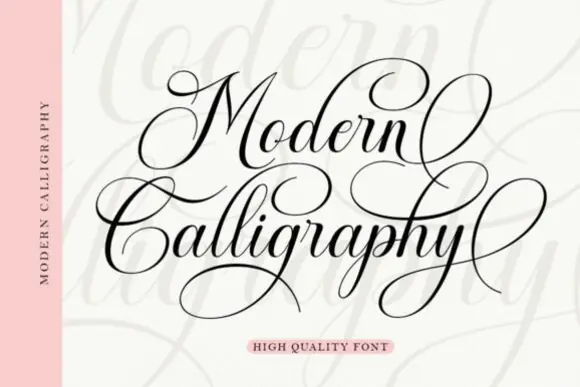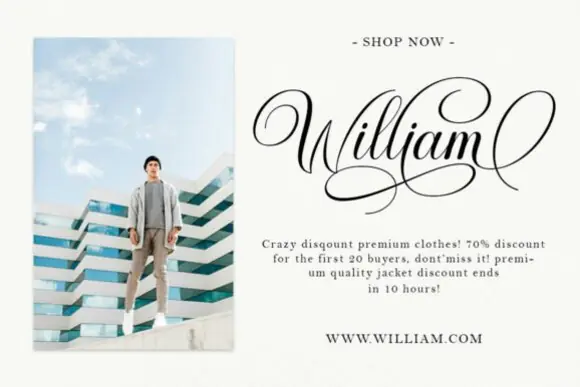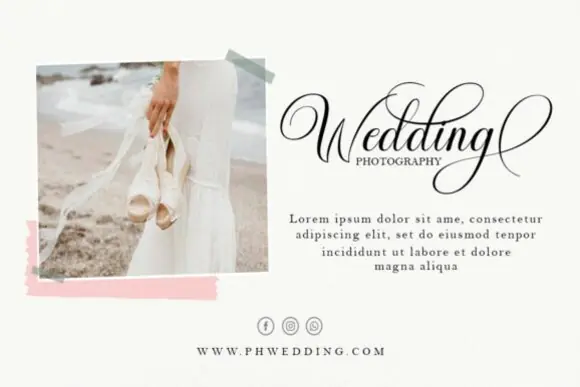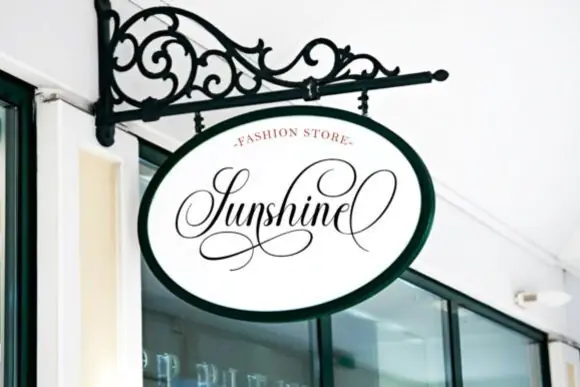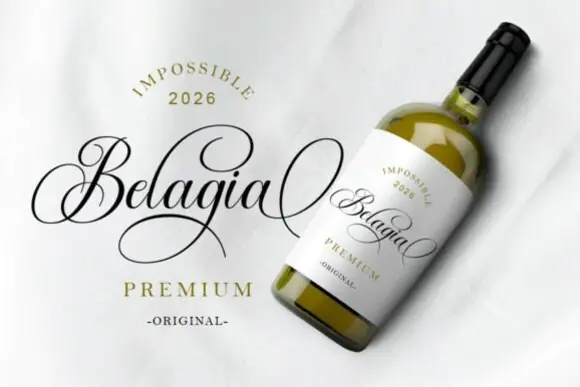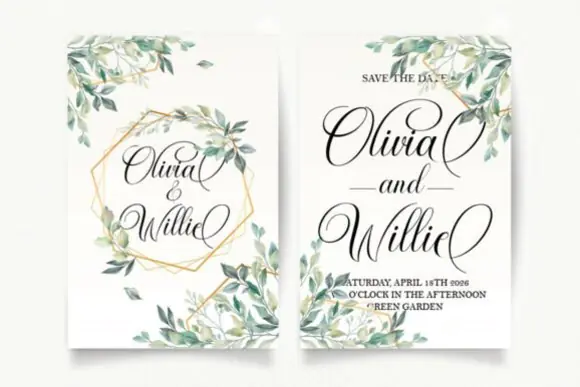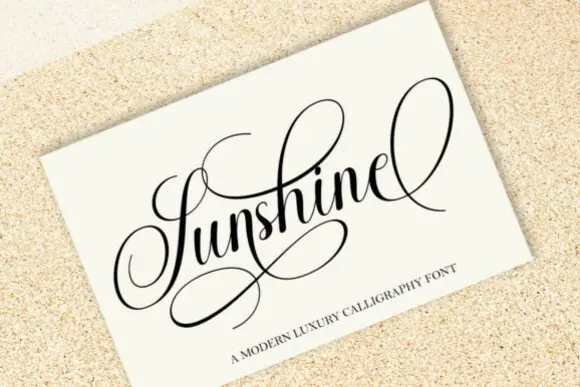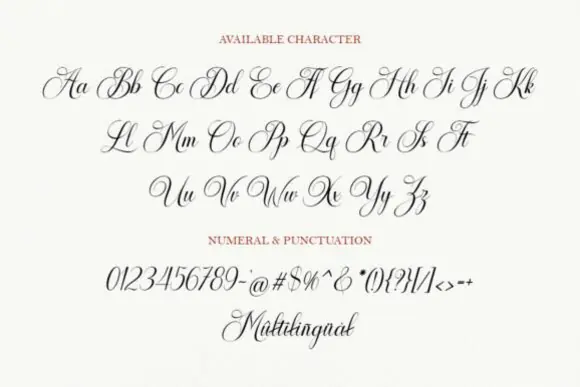
Create graceful, romantic, and sophisticated designs with Valentina Calligraphy Font, an elegant script typeface inspired by classic decorative copperplate calligraphy with a modern refined touch. This font is designed with smooth curves, beautiful letter connections, and stylish alternates, making it perfect for projects that need a luxurious and feminine handwritten look.
Valentina Calligraphy is ideal for designers, crafters, wedding creators, boutique brands, small business owners, and digital product sellers who want to create polished designs with a premium calligraphy feel. Its clean and readable script style works beautifully for wedding invitations, logos, branding, restaurant menus, fashion designs, beauty packaging, greeting cards, stationery, book covers, magazines, advertisements, product labels, and social media graphics.
The font includes stylistic alternates and flourishes, giving you more creative flexibility for elegant titles, names, quotes, and decorative typography. It is also PUA encoded, allowing easy access to alternates and special characters without needing advanced design tools.
• Wedding invitations
• Bridal stationery
• Elegant logo design
• Luxury branding
• Beauty packaging
• Fashion projects
• Restaurant menus
• Greeting cards
• Product labels
• Book covers and magazines
• Advertising materials
• Cricut and Silhouette crafts
• Feminine quote designs
Design Style:
Elegant, calligraphy, script, copperplate, feminine, sensual, smooth, clean, refined, romantic, luxury, graceful, decorative, and sophisticated.
Use Valentina Calligraphy Font to give your designs a timeless handwritten elegance and create beautiful typography that feels premium, romantic, and professionally crafted.